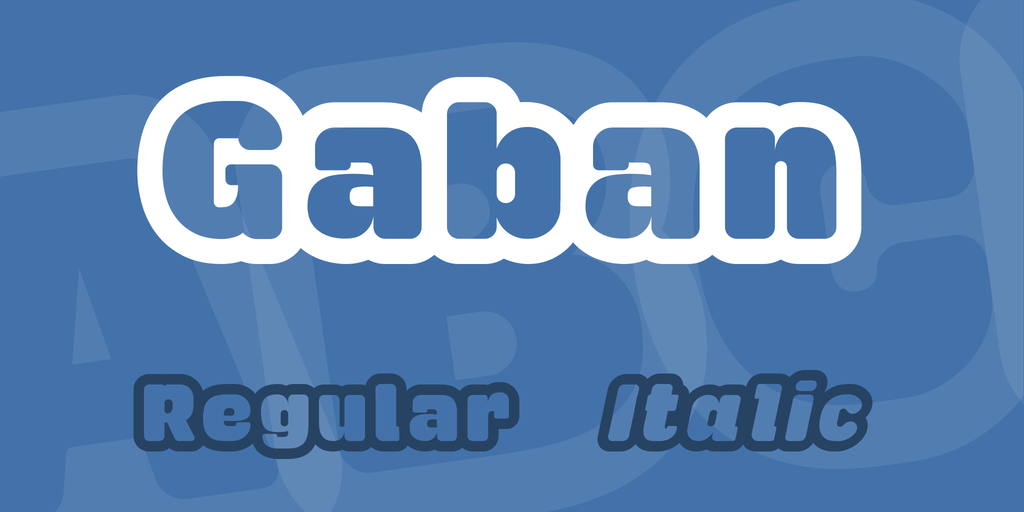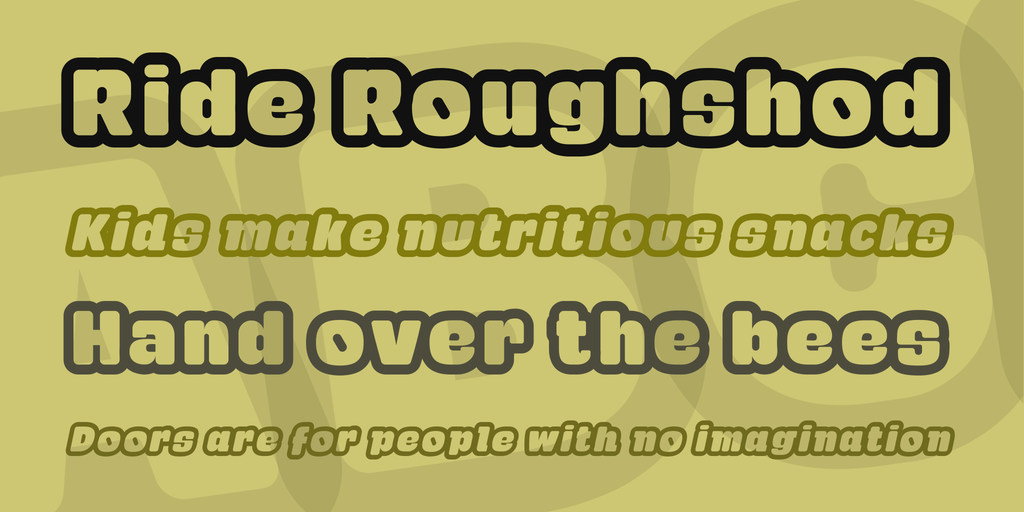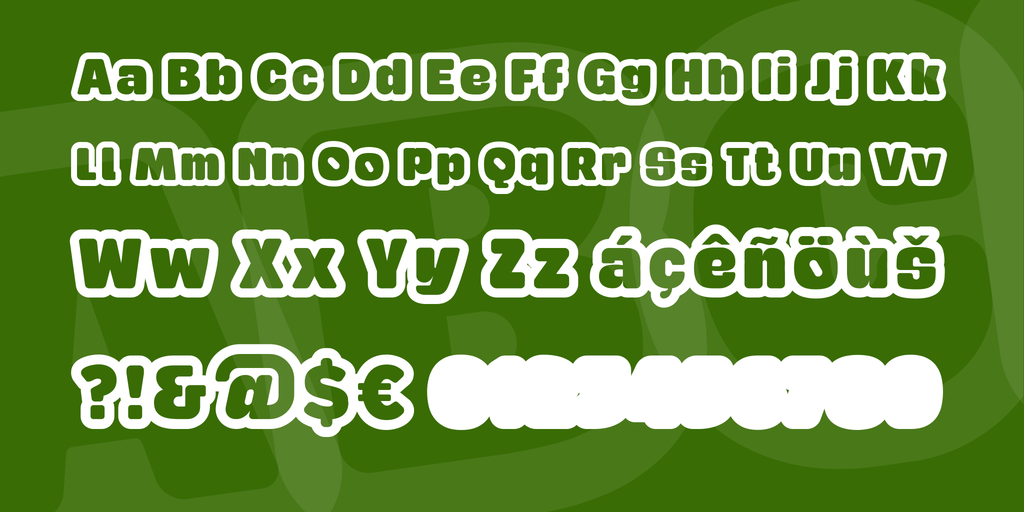
Gaban Font Family
Gaban is a very thick, round display typeface with square proportions designed in continuous outline by deFharo from Spain. Perfect for titles in editorial design and advertising.